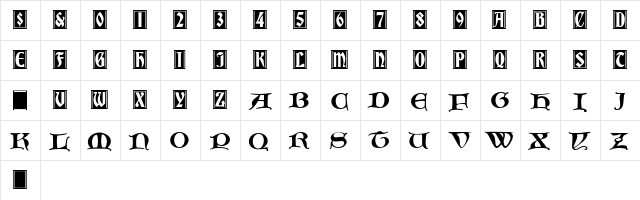
InitialsBradleyandCaxton Regular
| Foundry | Digitized by Dan X. Solo. Software \ by Dover Publications, Inc |
Design Context for InitialsBradleyandCaxton Typeface
InitialsBradleyandCaxton is a composed and adaptable typeface that performs quietly and consistently across a wide range of design contexts.